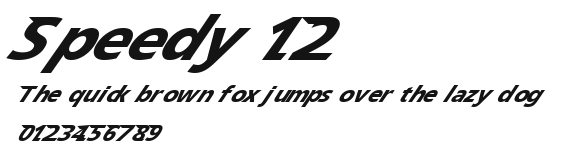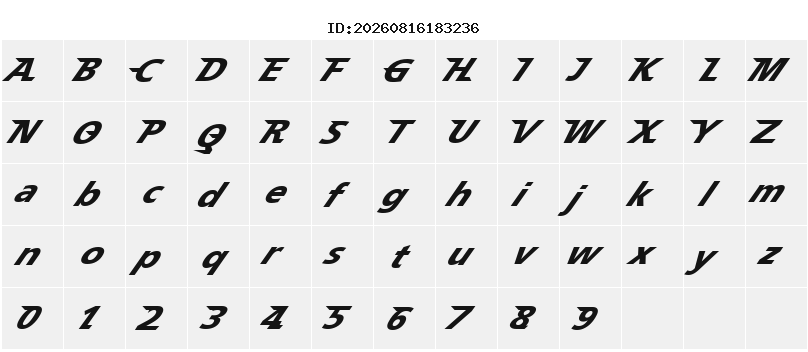
• Font Name: Speedy 12
• Font ID: Speedy 12
• Full Font Name: Speedy 12
• Version: 1.00 of this It's speedy baby! font
• PostScript Name: Speedy12
• Character Count: 146
About Speedy 12.ttf
Speedy 12.ttf is a modern, elegant sans-serif font designed for ultimate readability and visual harmony. Perfect for branding, headlines, web design, and print materials.